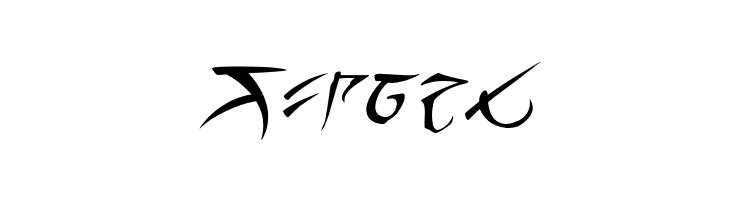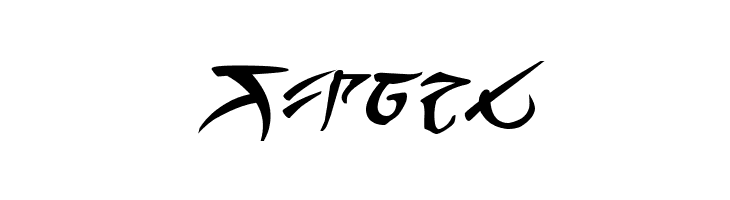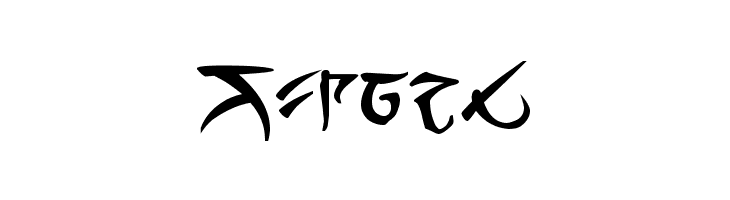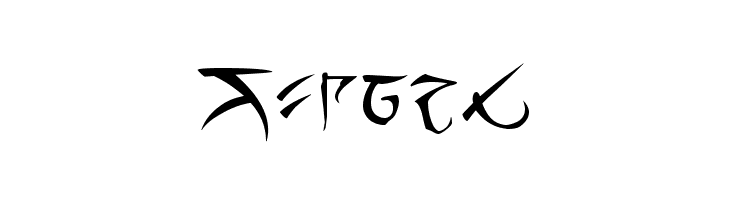
Barazhad Font
A decorative, fantasy-inspired font with sharp, angular lines and intricate details.
Barazhad Bold Italic Font
A bold, italicized font with sharp, angular characters and a futuristic aesthetic.
Barazhad Bold Font
A bold, intricate font with an ancient, mystical appearance.
Barazhad Italic Font
A decorative, angular, and italicized font with a mystical, ancient script style.